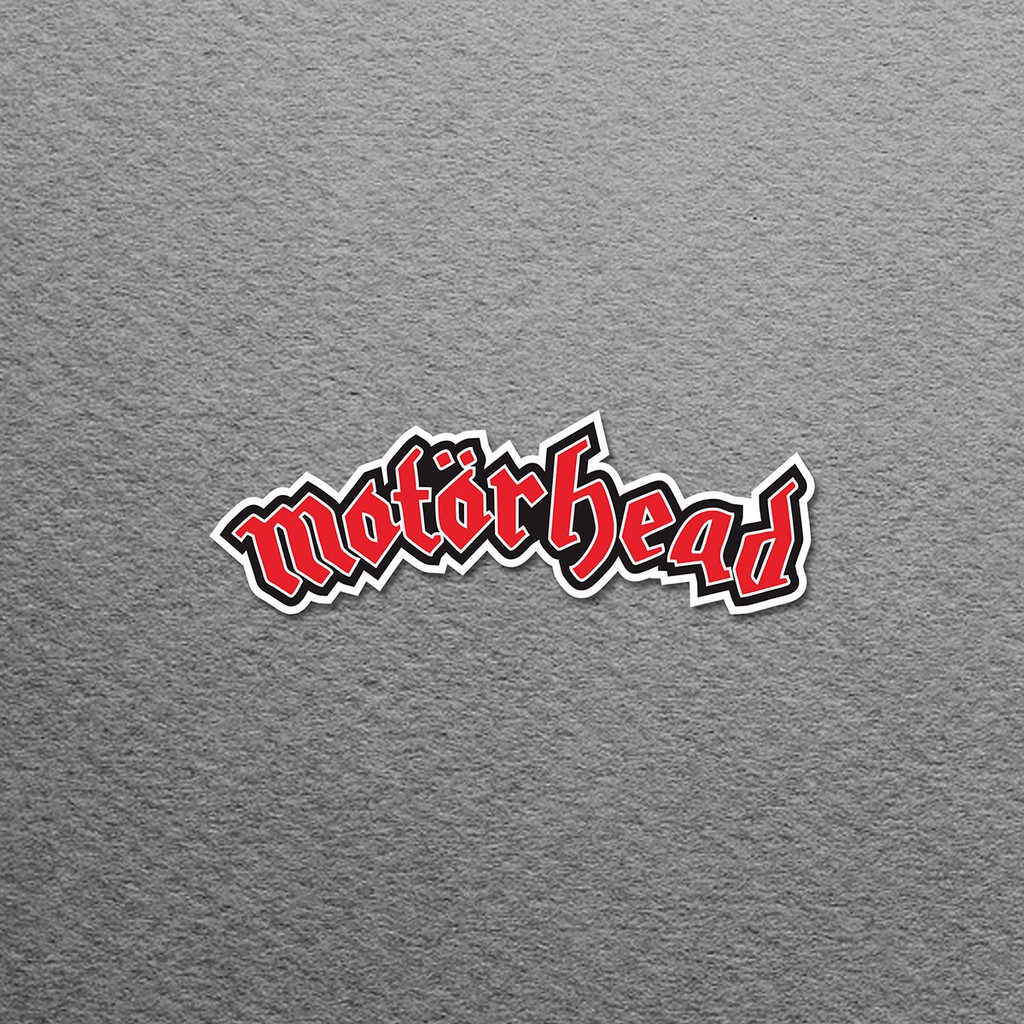
Motorhead Font Name . Two free fonts that are similar to the lettering of the logotype are. Motorhead font contains 654 defined characters and 102 unique glyphs. You can test out your font by using the text box at the top of the page. You can download motörhead font from font sherlock. Above the logo is their arched logotype in the old english style lettering in red. The site will redirect you to the front page where you will find the character map of ‘motörhead ‘ fonts. The motörhead font is a stylized font inspired by the iconic logo of the british rock band motörhead. You can edit it to create your own fonts by clicking the edit button below. Motorhead logo font is a famous gothic font that was designed specifically for the logo of the motorhead band. In an interview with revolver magazine back in 2002, the late bassist and singer lemmy kilmister explained the origin of the band’s mascot and logo, saying that the font was inspired by the one used by blue öyster cult.
Two free fonts that are similar to the lettering of the logotype are. You can test out your font by using the text box at the top of the page. The motörhead font is a stylized font inspired by the iconic logo of the british rock band motörhead. Motorhead logo font is a famous gothic font that was designed specifically for the logo of the motorhead band. In an interview with revolver magazine back in 2002, the late bassist and singer lemmy kilmister explained the origin of the band’s mascot and logo, saying that the font was inspired by the one used by blue öyster cult. Motorhead font contains 654 defined characters and 102 unique glyphs. You can edit it to create your own fonts by clicking the edit button below. You can download motörhead font from font sherlock. Above the logo is their arched logotype in the old english style lettering in red. The site will redirect you to the front page where you will find the character map of ‘motörhead ‘ fonts.
Motorhead Font Name In an interview with revolver magazine back in 2002, the late bassist and singer lemmy kilmister explained the origin of the band’s mascot and logo, saying that the font was inspired by the one used by blue öyster cult. You can test out your font by using the text box at the top of the page. The site will redirect you to the front page where you will find the character map of ‘motörhead ‘ fonts. The motörhead font is a stylized font inspired by the iconic logo of the british rock band motörhead. Two free fonts that are similar to the lettering of the logotype are. Motorhead logo font is a famous gothic font that was designed specifically for the logo of the motorhead band. You can download motörhead font from font sherlock. Above the logo is their arched logotype in the old english style lettering in red. You can edit it to create your own fonts by clicking the edit button below. In an interview with revolver magazine back in 2002, the late bassist and singer lemmy kilmister explained the origin of the band’s mascot and logo, saying that the font was inspired by the one used by blue öyster cult. Motorhead font contains 654 defined characters and 102 unique glyphs.
motorhead Font Lettering, Alphabet style, Fonts alphabet Motorhead Font Name Motorhead logo font is a famous gothic font that was designed specifically for the logo of the motorhead band. The motörhead font is a stylized font inspired by the iconic logo of the british rock band motörhead. Above the logo is their arched logotype in the old english style lettering in red. Two free fonts that are similar to the. Motorhead Font Name.
Motorhead Font Free Download Font Pearl Motorhead Font Name Motorhead font contains 654 defined characters and 102 unique glyphs. You can download motörhead font from font sherlock. Two free fonts that are similar to the lettering of the logotype are. In an interview with revolver magazine back in 2002, the late bassist and singer lemmy kilmister explained the origin of the band’s mascot and logo, saying that the font. Motorhead Font Name.
Motörhead Logo and symbol, meaning, history, PNG, brand Motorhead Font Name Motorhead font contains 654 defined characters and 102 unique glyphs. You can edit it to create your own fonts by clicking the edit button below. Two free fonts that are similar to the lettering of the logotype are. The motörhead font is a stylized font inspired by the iconic logo of the british rock band motörhead. In an interview with. Motorhead Font Name.
Jual Sticker Band MOTORHEAD Font Shopee Indonesia Motorhead Font Name Above the logo is their arched logotype in the old english style lettering in red. Motorhead font contains 654 defined characters and 102 unique glyphs. The motörhead font is a stylized font inspired by the iconic logo of the british rock band motörhead. The site will redirect you to the front page where you will find the character map of. Motorhead Font Name.
Motorhead Grotesk Font UpFonts Motorhead Font Name Motorhead font contains 654 defined characters and 102 unique glyphs. The site will redirect you to the front page where you will find the character map of ‘motörhead ‘ fonts. Motorhead logo font is a famous gothic font that was designed specifically for the logo of the motorhead band. You can download motörhead font from font sherlock. Two free fonts. Motorhead Font Name.
motorhead free Font What Font Is Motorhead Font Name Motorhead font contains 654 defined characters and 102 unique glyphs. You can edit it to create your own fonts by clicking the edit button below. In an interview with revolver magazine back in 2002, the late bassist and singer lemmy kilmister explained the origin of the band’s mascot and logo, saying that the font was inspired by the one used. Motorhead Font Name.
Motörhead Let Fans Umlaut Their Name With Online Graphic… Kerrang! Motorhead Font Name You can edit it to create your own fonts by clicking the edit button below. The motörhead font is a stylized font inspired by the iconic logo of the british rock band motörhead. Above the logo is their arched logotype in the old english style lettering in red. You can test out your font by using the text box at. Motorhead Font Name.
Motörhead Font and Motörhead Logo Motorhead Font Name The site will redirect you to the front page where you will find the character map of ‘motörhead ‘ fonts. Motorhead logo font is a famous gothic font that was designed specifically for the logo of the motorhead band. Above the logo is their arched logotype in the old english style lettering in red. You can test out your font. Motorhead Font Name.
"METALHEAD with the MOTORHEAD font" Sticker for Sale by MacSquiddles Motorhead Font Name Two free fonts that are similar to the lettering of the logotype are. In an interview with revolver magazine back in 2002, the late bassist and singer lemmy kilmister explained the origin of the band’s mascot and logo, saying that the font was inspired by the one used by blue öyster cult. You can test out your font by using. Motorhead Font Name.